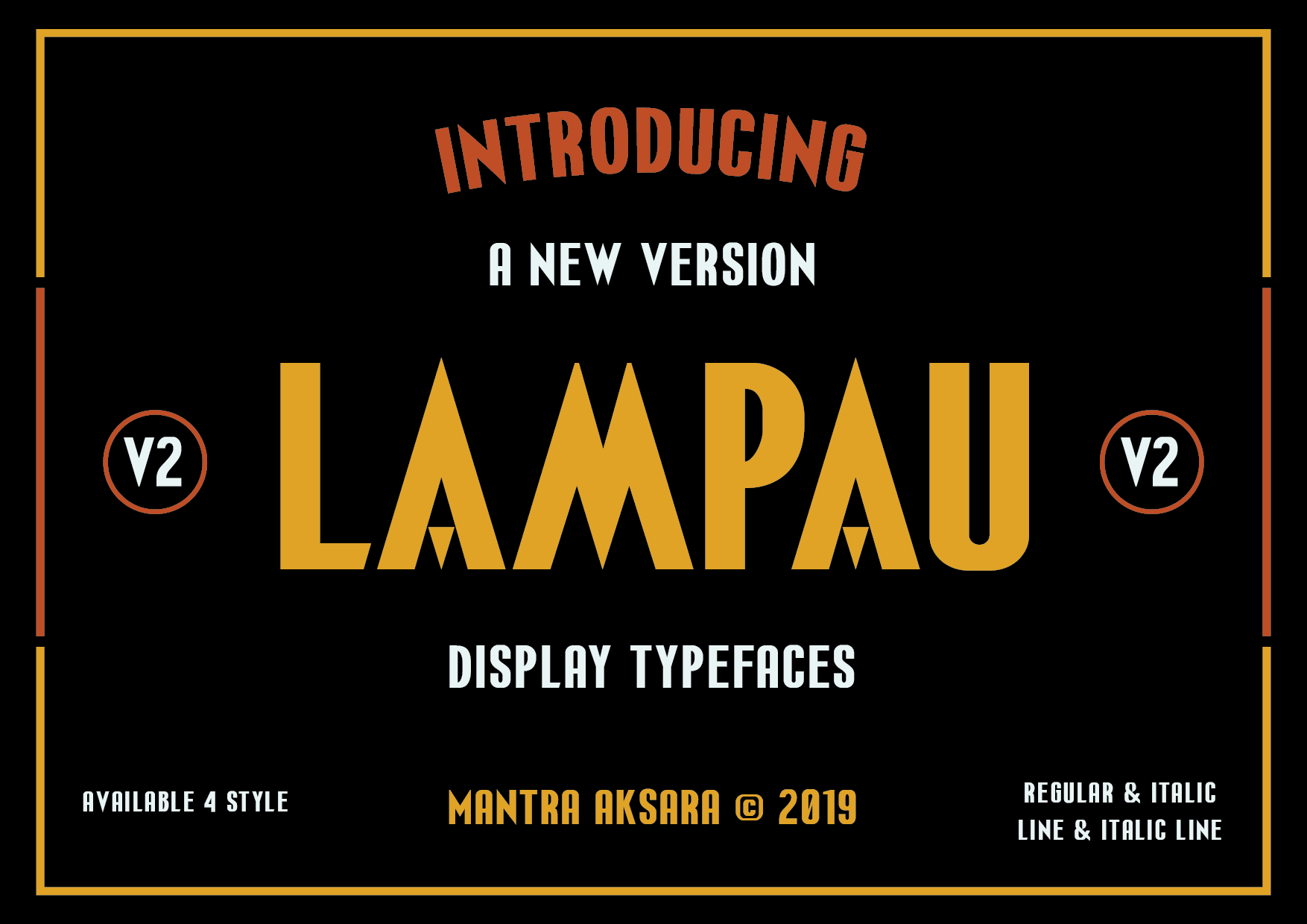
Lampau Font
Lampau is a Vintage bold sans serif with solid font files from MANTRA AKSARA. The letters were so influenced by the Vintage Poster in Batavia, Dutch East Indie colonial era .
Lampau Features:
Character set A-Z with special uppercase letters Numerals & Punctuation